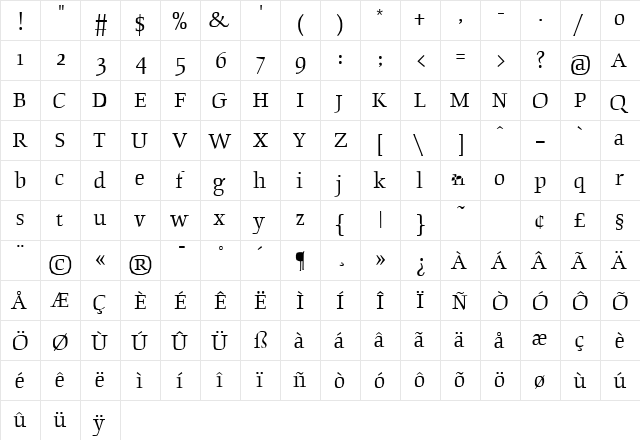
BeowolfSerifR23 Regular Font Preview
BeowolfSerifR23 Regular
Design Context for BeowolfSerifR23 Typeface
BeowolfSerifR23 carries the refined structure of traditional serif typography, with bracketed terminals and considered proportions that communicate credibility and craft.